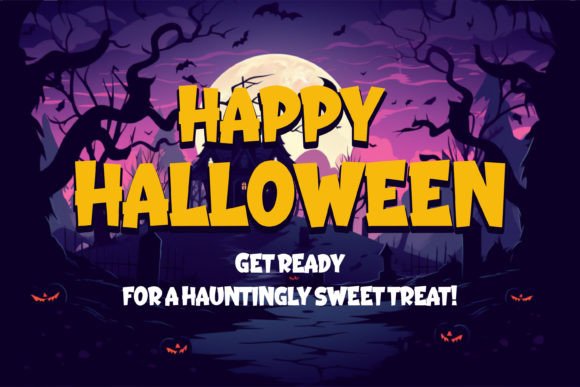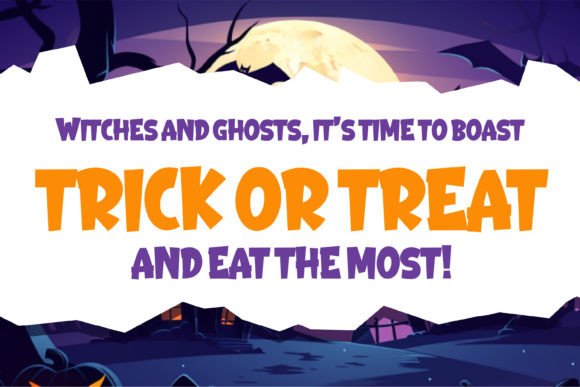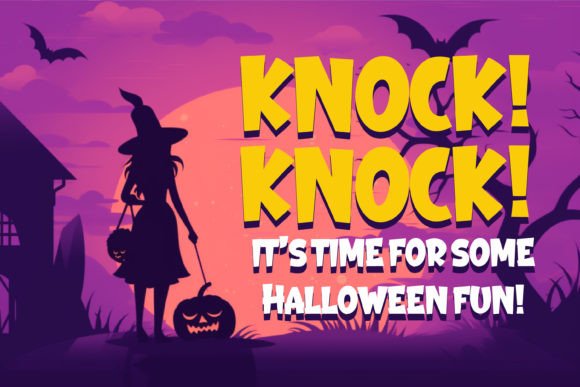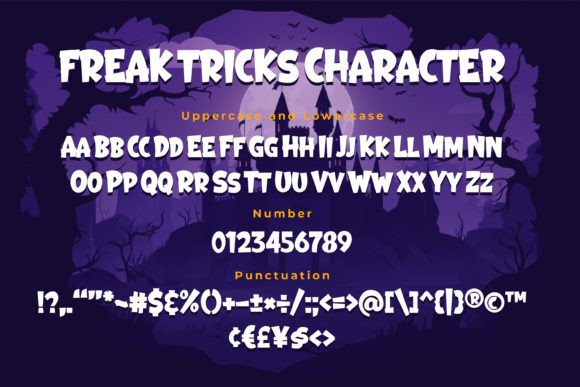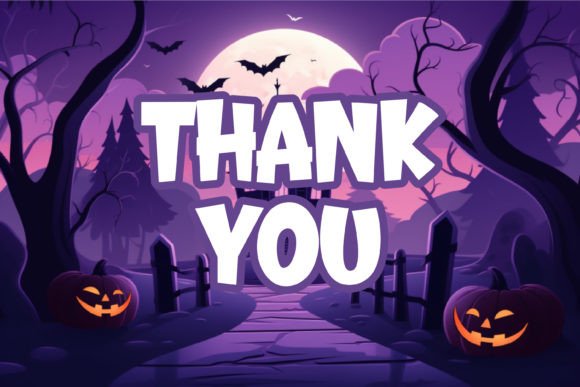
Introducing Freak Trikcs: The Playful Display Font That Brings Wild Fun to Your Designs!
Have you ever been in the middle of a design project, feeling like something’s missing, but you just can’t quite put your finger on it? I recall a recent experience where I was working on a party invitation for a client’s birthday bash. The design was sleek, modern, and clean, but it lacked a certain je ne sais quoi. That’s when I stumbled upon Freak Trikcs, a playful display font that completely transformed the project.
With its quirky, unpredictable shapes and energetic vibe, Freak Trikcs is perfect for projects that need a splash of fun and excitement. Whether you’re designing for posters, party invites, quirky branding, or social media, this font adds a sense of adventure and whimsy that will leave your audience smiling.
Honest Review: What I Love (and a Few Quirks)
So, what makes Freak Trikcs so special? Here are a few things that I absolutely love about this font:
- ✨ Unique and playful design: Freak Trikcs has a one-of-a-kind look that’s sure to grab attention.
- ✅ Highly versatile: This font can be used for a wide range of projects, from posters and flyers to social media graphics and branding.
- 💥 Energetic and fun: Freak Trikcs has a lively, energetic vibe that’s perfect for projects that need a bit of excitement.
Of course, no font is perfect, and Freak Trikcs does have a few quirks:
- 🤔 May not be suitable for body text: Due to its playful, display nature, Freak Trikcs may not be the best choice for longer blocks of text.
- ⚠️ Limited legibility at small sizes: As with many display fonts, Freak Trikcs may be difficult to read at very small sizes.
One of the best things about Freak Trikcs is its OpenType features and glyphs. These allow you to add more variety and creativity to your designs. Here are a few tips for accessing and using these features:
Freak Trikcs was designed with one goal in mind: to bring a sense of fun and excitement to designs. The designer, inspired by the world of street art and graffiti, set out to create a font that was bold, playful, and unpredictable. The result is a font that’s perfect for designers who want to add a bit of whimsy to their work.
- Q: What type of projects is Freak Trikcs best suited for?
- A: Freak Trikcs is perfect for projects that need a splash of fun and excitement, such as party invitations, social media graphics, and quirky branding.
- Q: Can I use Freak Trikcs for body text?
- A: While Freak Trikcs is a beautiful font, it may not be the best choice for body text due to its playful, display nature.
- Q: Is Freak Trikcs easy to read?
- A: Freak Trikcs is generally easy to read at larger sizes, but may be difficult to read at very small sizes.